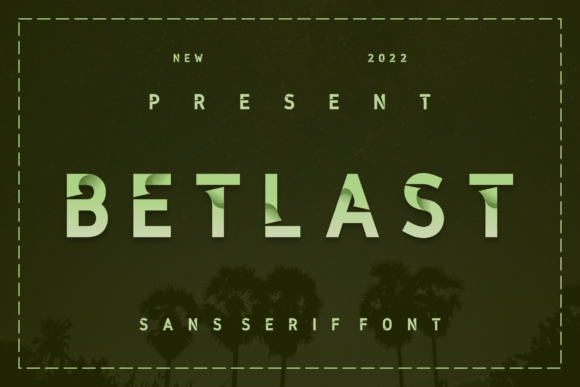
The Perfect Font for Your Creative Projects: Introducing Betlast Font
Have you ever stared at a blank canvas, struggling to find the perfect font to bring your design to life? It’s a feeling we’ve all been there – the blank page staring back at us, waiting for that one font that will make everything click. Well, put your creative anxieties to rest, because we’re excited to introduce you to the Betlast Font, a modern sans serif font that’s sure to elevate your designs.
Designed with the latest trends in mind, the Betlast Font is perfect for a wide range of creative projects, from crafting and digital designing to presentations and greeting card making. Its sleek and modern design makes it a valuable addition to any designer’s toolkit, offering endless possibilities for creative expression.
Whether you’re a seasoned designer or just starting out, the Betlast Font is sure to become your go-to font for all your creative needs. So why not give it a try and see the difference it can make in your next project?
Betlast Font Key Features
- Font Family: Betlast Font is a modern sans-serif font designed for digital use. It is available in multiple weights, from light to bold.
- Unique Characteristics: Betlast Font features a unique blend of geometric and organic elements, resulting in a clean and modern aesthetic. It is particularly well-suited for digital applications, such as web design, mobile apps, and video games.
- Support: Betlast Font supports a wide range of languages, including Latin, Cyrillic, and Greek, making it a versatile choice for multilingual applications.
Betlast Font Review
I recently had the chance to work with the Betlast font, and I must say it has its strengths and weaknesses. Here’s my honest review:
- Unique aesthetic: The Betlast font has a distinct, modern feel that can add a touch of sophistication to any design project.
- High legibility: The font is easy to read, even at smaller font sizes, making it a great choice for body text or headlines.
- Customizability: The font comes in a range of weights and styles, allowing designers to experiment with different looks and feels.
- Limited expressiveness: While the font has a unique aesthetic, it may not be the best choice for designs that require a lot of emotional expression or nuance.
- Not suitable for small text: While the font is highly legible, it may not be the best choice for very small text sizes, where the lack of texture and character detail may make it difficult to read.
- Not a good choice for text-heavy designs: The font’s modern feel may not be the best fit for designs that require a lot of text, such as articles or essays.
The Betlast font is a solid choice for designers who want to add a touch of modernity to their projects. While it may not be the best choice for every design task, it’s a great option for projects that require a clean, sophisticated look. With a little experimentation and creativity, designers can get the most out of this versatile font.
The Betlast font is ideal for:
- Body text with a touch of elegance
- Editorial and publishing projects Alternatives to Betlast Font
Create a vintage-inspired poster for a fictional arcade game using the Betlast Font. The font’s distressed and worn look will perfectly capture the essence of classic arcade games.
Cyberpunk City Sign
Design a futuristic city sign using the Betlast Font to create a gritty, high-tech feel. The font’s distressed look will add to the overall cyberpunk aesthetic.